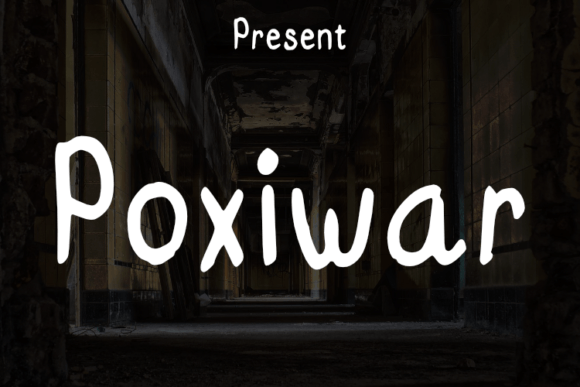
Introducing Poxiwar Font – The Quintessential Handwritten Typeface for Unparalleled Visual Appeal
In a world saturated with digital content, capturing attention and creating a lasting impression has become paramount. Poxiwar Font is the ultimate solution for designers and content creators seeking to elevate their projects with a touch of elegance, luxury, and modernity.
This meticulously handcrafted typeface boasts a unique style that emanates sophistication and charm. Its flowing lines, delicate curves, and striking letterforms create visuals that are both visually arresting and deeply evocative.
A Treasure Trove of Design Versatility
With Poxiwar Font, the possibilities are endless. Unleash your creativity and explore a world of design applications where Poxiwar Font shines:
- Craft elegant and luxurious logos that exude professionalism and prestige.
- Create book or movie title designs that captivate audiences and leave an unforgettable impression.
- Elevate fashion brands with designs that embody style, sophistication, and exclusivity.
- Design eye-catching magazines and clothing lines that radiate personality and panache.
- Craft fonts that are both visually appealing and highly legible, ensuring that your message is conveyed with clarity and impact.
- Add a touch of elegance to quotes and graphics, transforming ordinary words into works of art.
A Journey Through Design Inspiration
Poxiwar Font is not just a collection of letters; it's an invitation to embark on a journey of design exploration. Its versatility and timeless appeal make it the perfect choice for a wide range of projects:
- Create stunning wedding invitations that reflect the joy and elegance of your special day.
- Design business cards that exude professionalism and leave a lasting impression on potential clients.
- Craft social media graphics that capture attention and engage audiences with visually compelling content.
- Create website designs that are both aesthetically pleasing and user-friendly, leaving visitors with a memorable experience.
- Design posters and flyers that demand attention and effectively communicate your message.
Experience the Poxiwar Font Difference
Poxiwar Font is more than just a typeface; it's an investment in your creative journey. With its unique style, exceptional versatility, and endless applications, Poxiwar Font will transform your designs and captivate audiences.